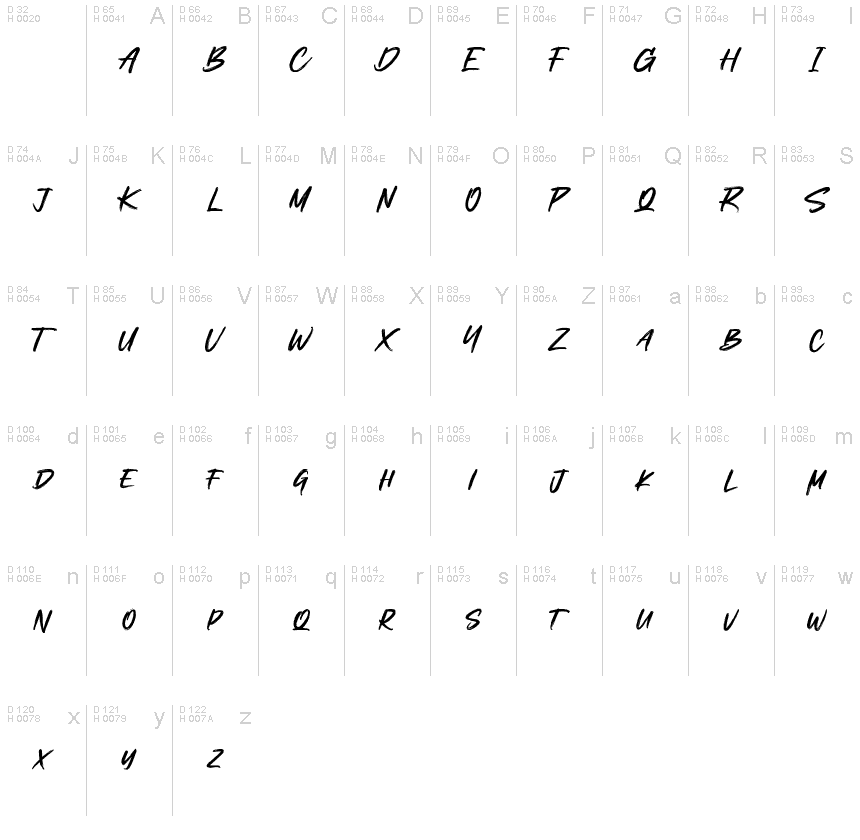
Spyckers Free Regular
Spyckers is a captivating brush font designed by Maulana Creative. Its semi-light weight adds a touch of elegance to your designs without sacrificing legibility. This font is perfect for projects that require a sophisticated yet playful touch, such as wedding invitations, fashion magazines, and branding for beauty products. The brush style creates an organic and authentic feel that adds personality to any project it's used in. Spyckers' flowing strokes make it ideal for creating eye-catching headlines or adding flair to body text. Elevate your designs with Spyckers today!